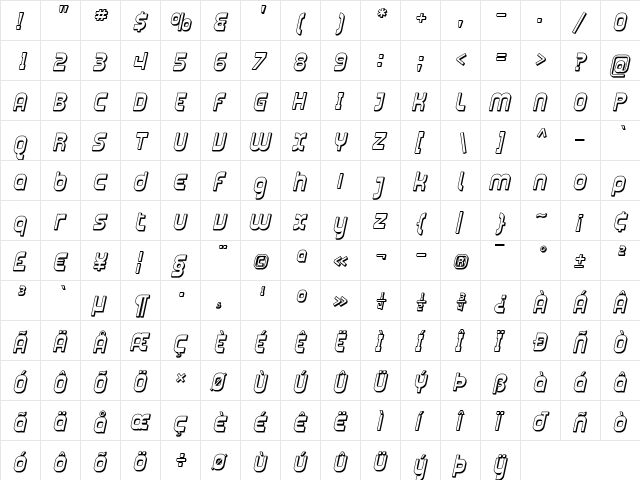
Plasmatica Shaded Italic
| Designer | Derek Vogelpohl |
Design Context for Plasmatica Shaded Typeface
Plasmatica Shaded offers clean, dependable letterforms without strong stylistic allegiance, making it a practical choice for designers who need flexibility. The slanted form adds forward momentum and visual energy.
Pro Tip: Try Plasmatica Shaded for annotation and caption copy alongside an upright companion — the contrast in angle creates a dynamic but ordered typographic system.